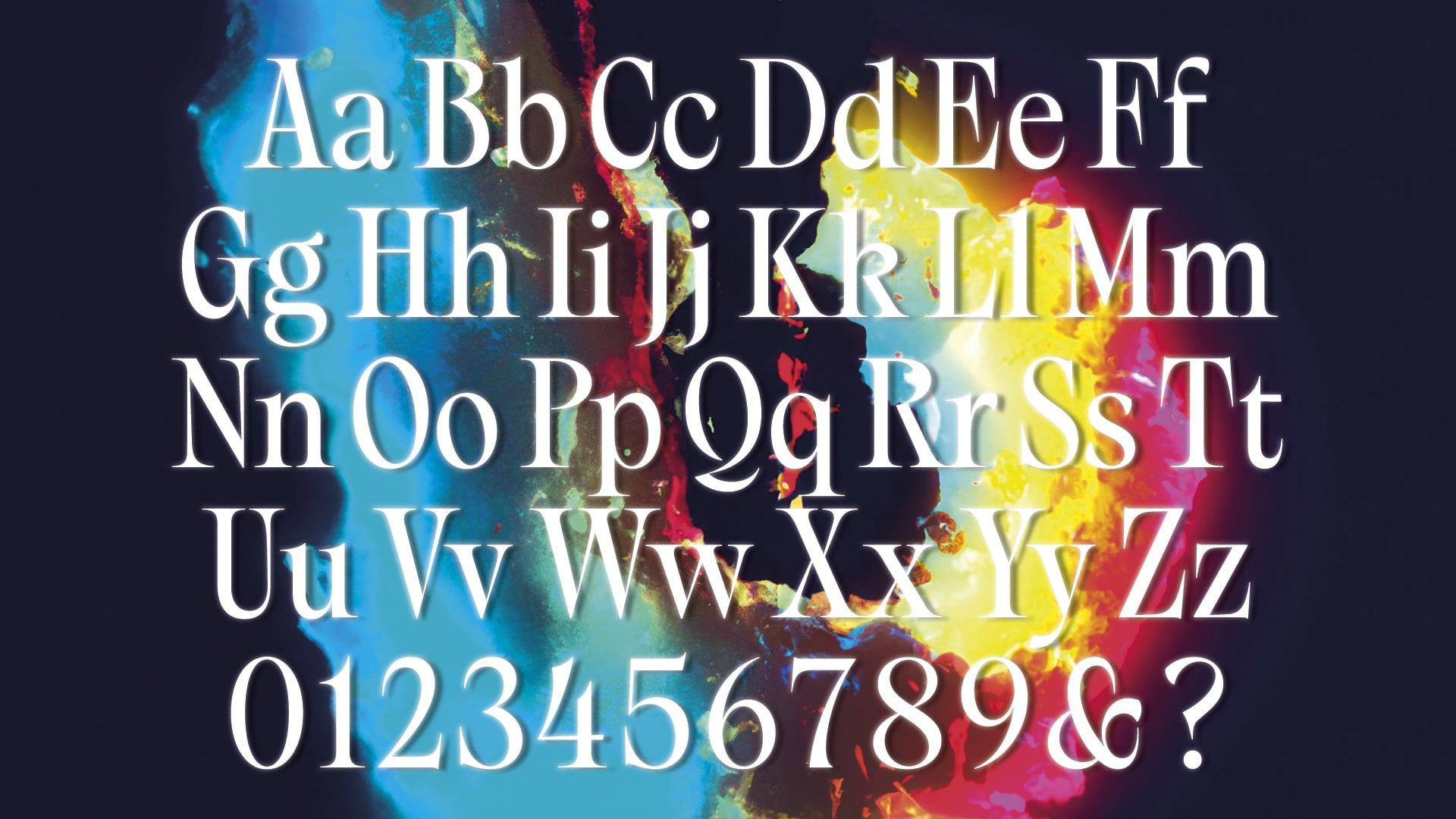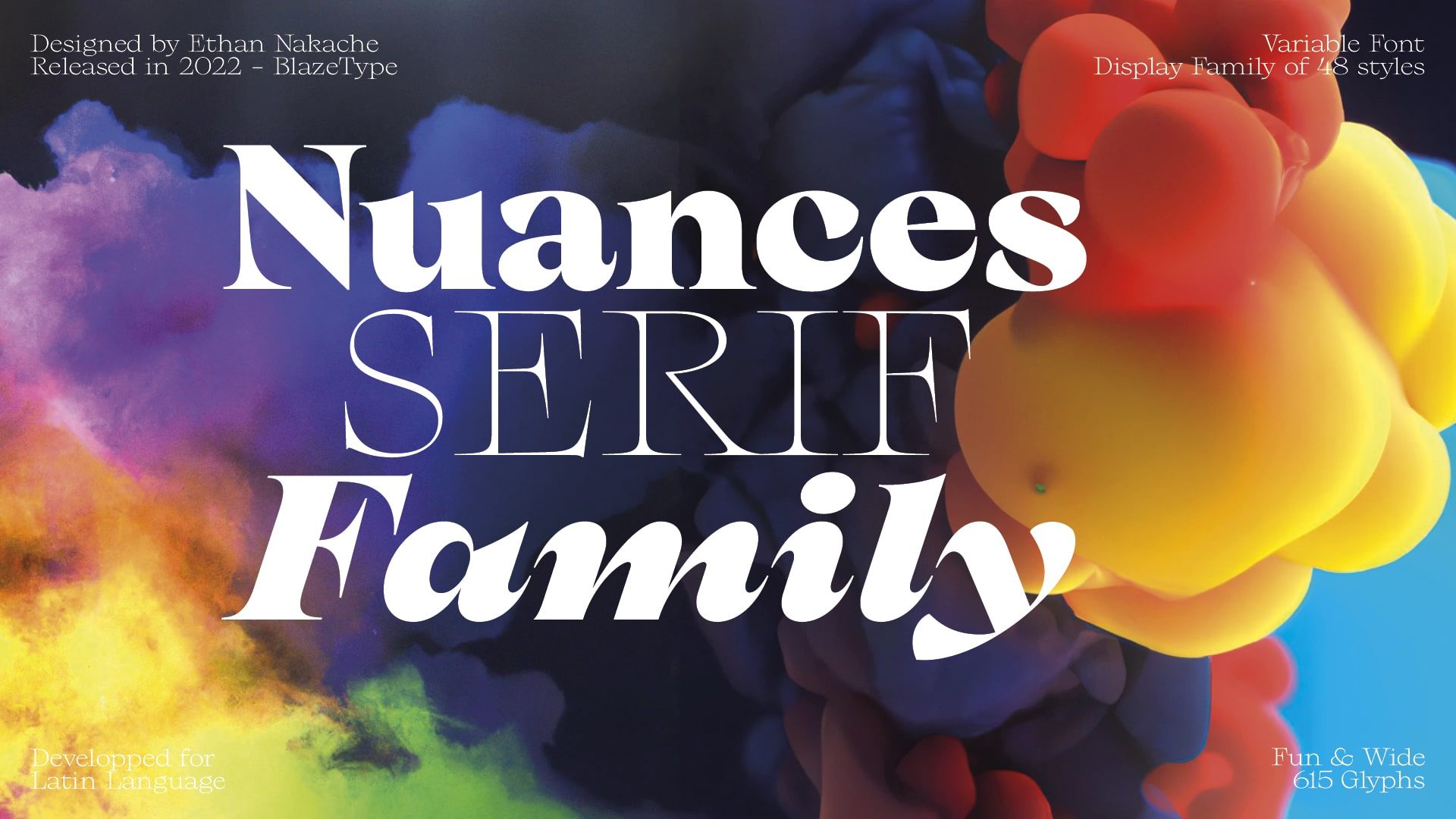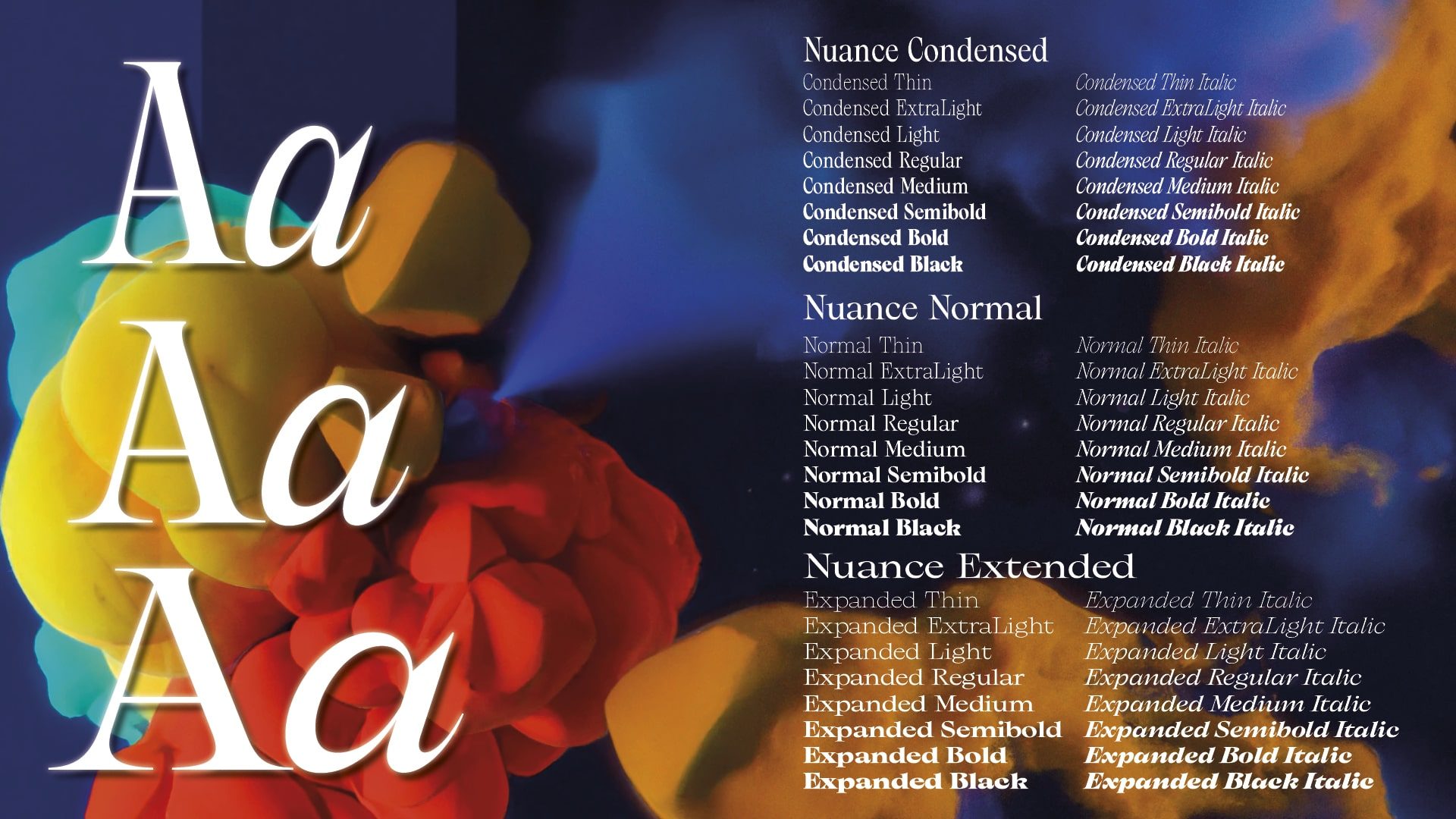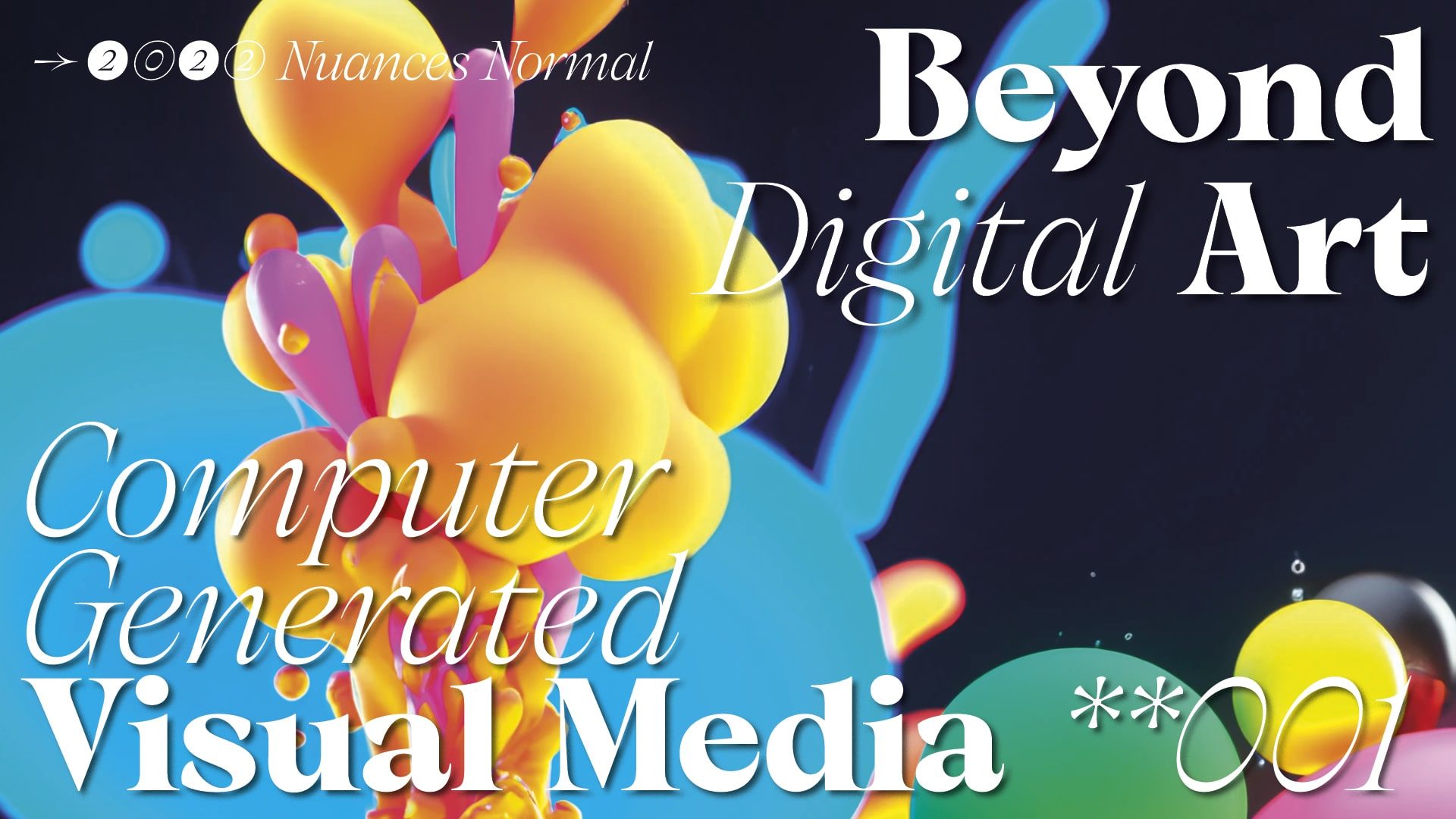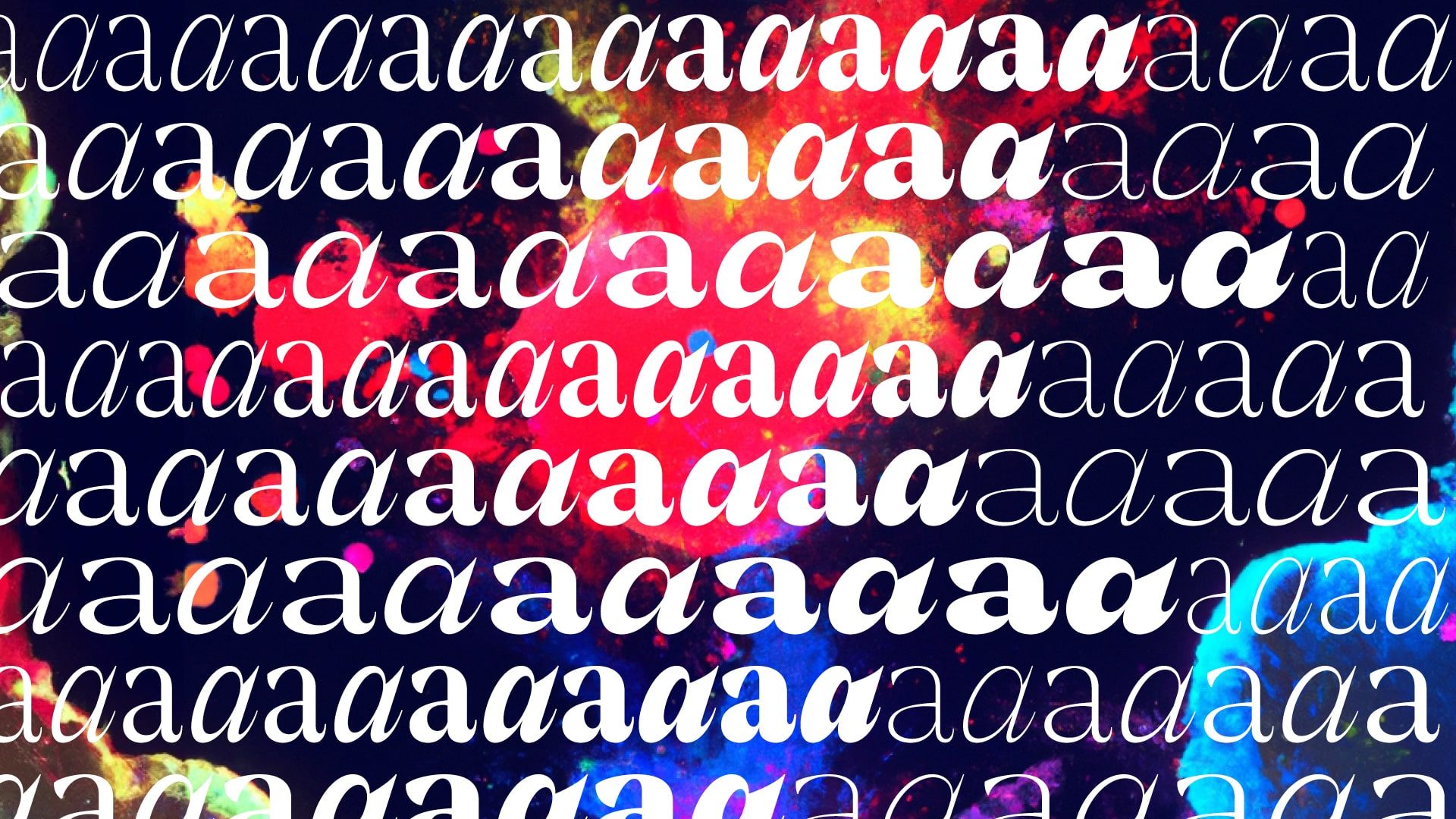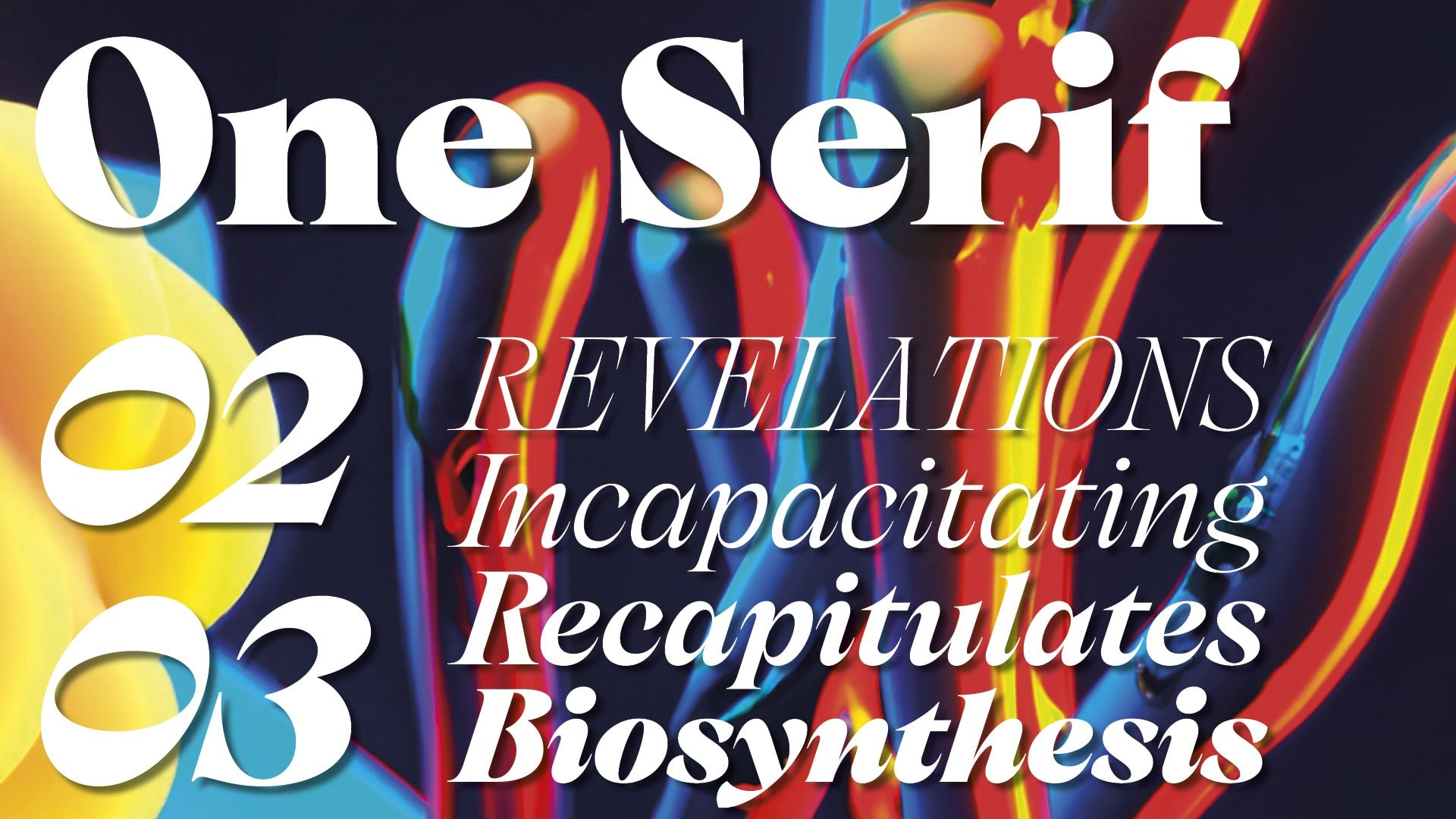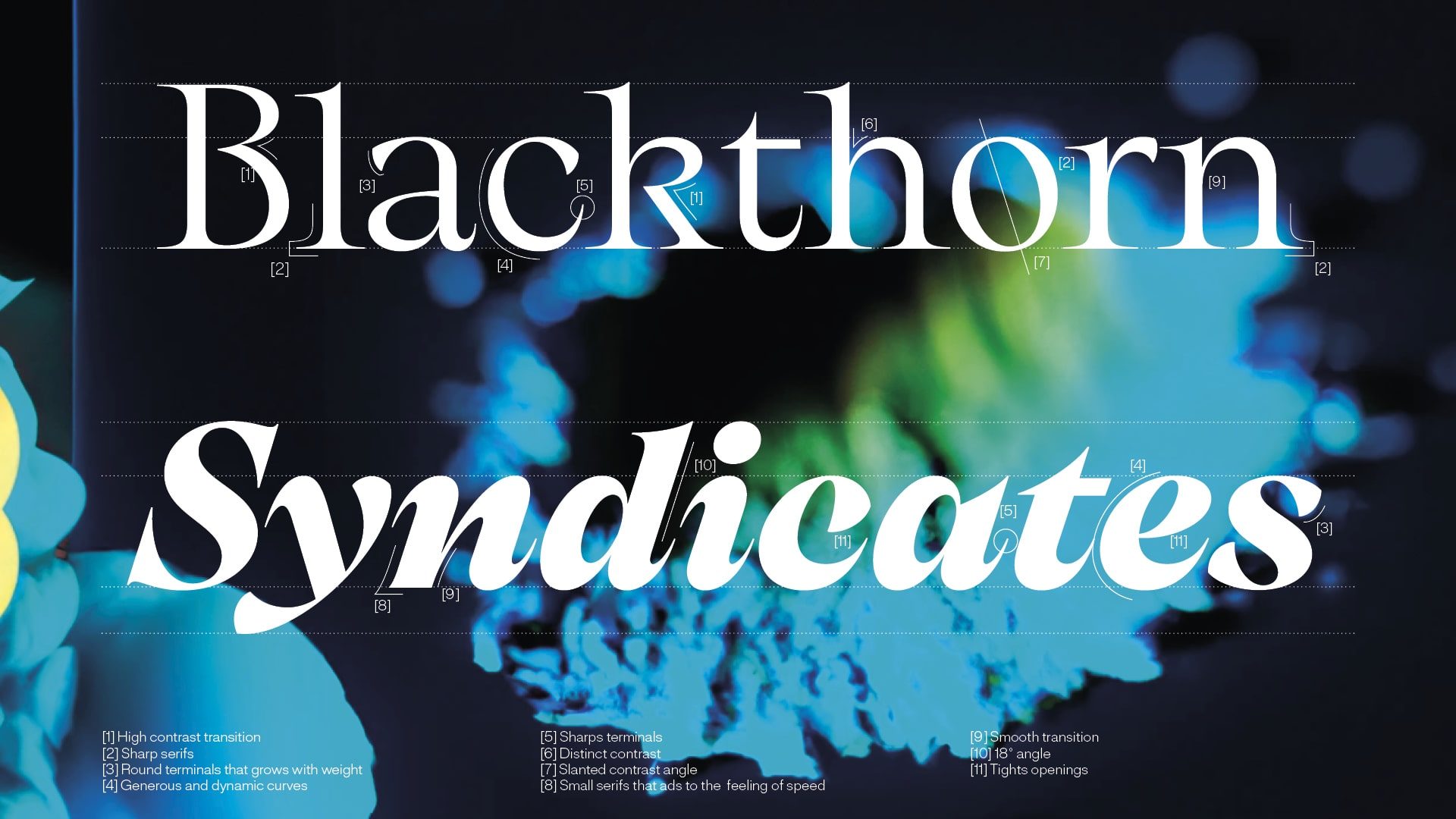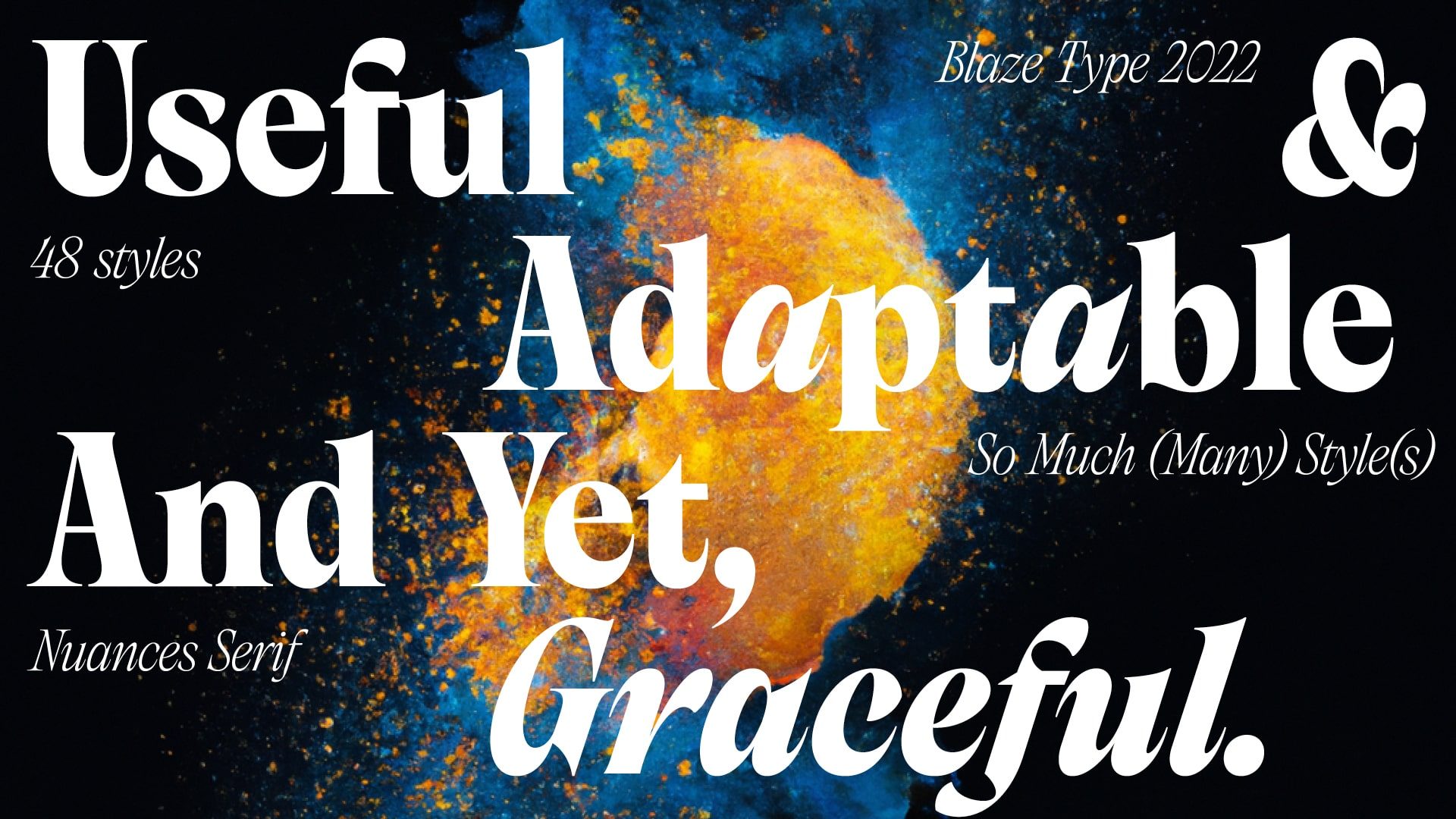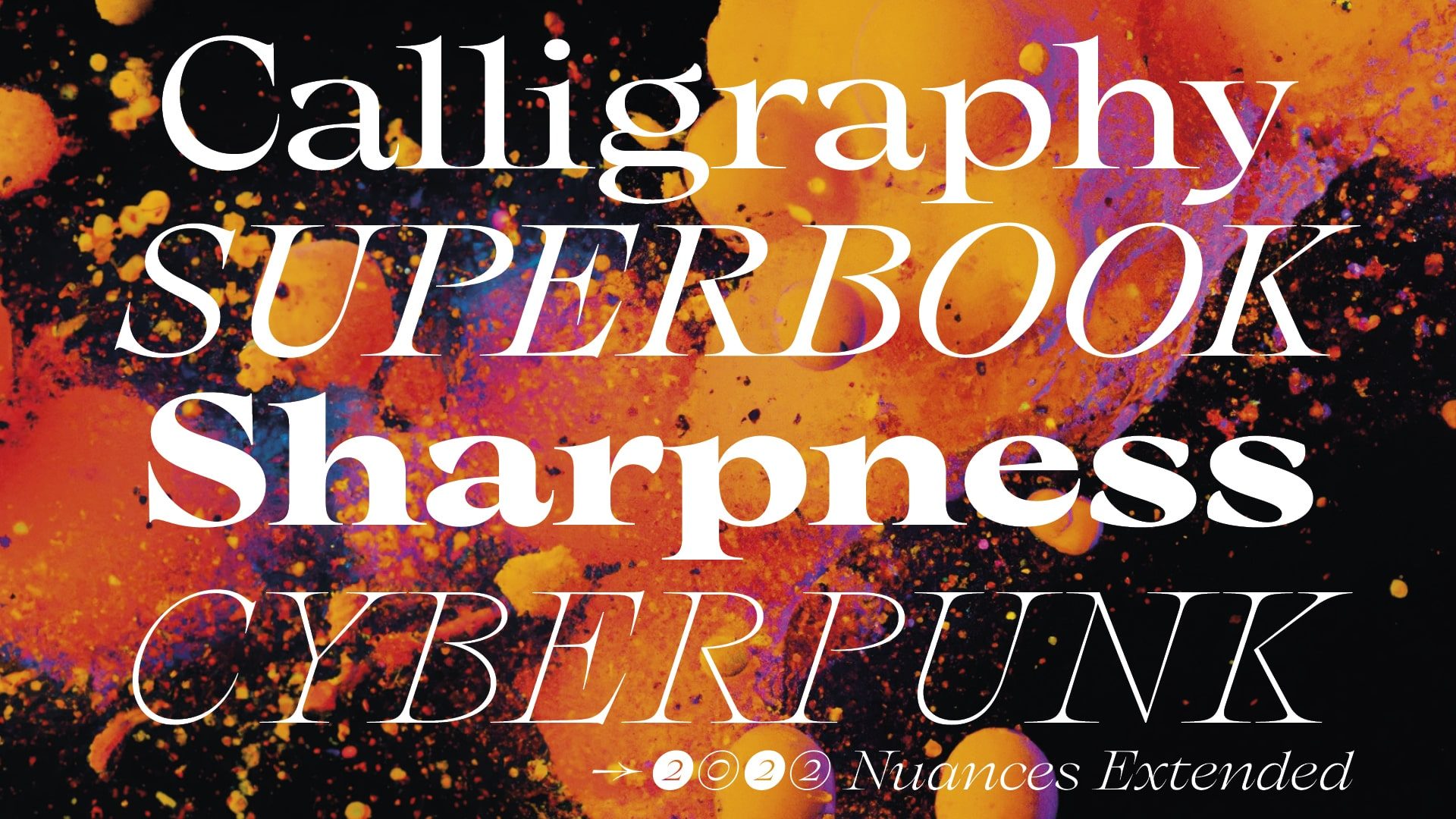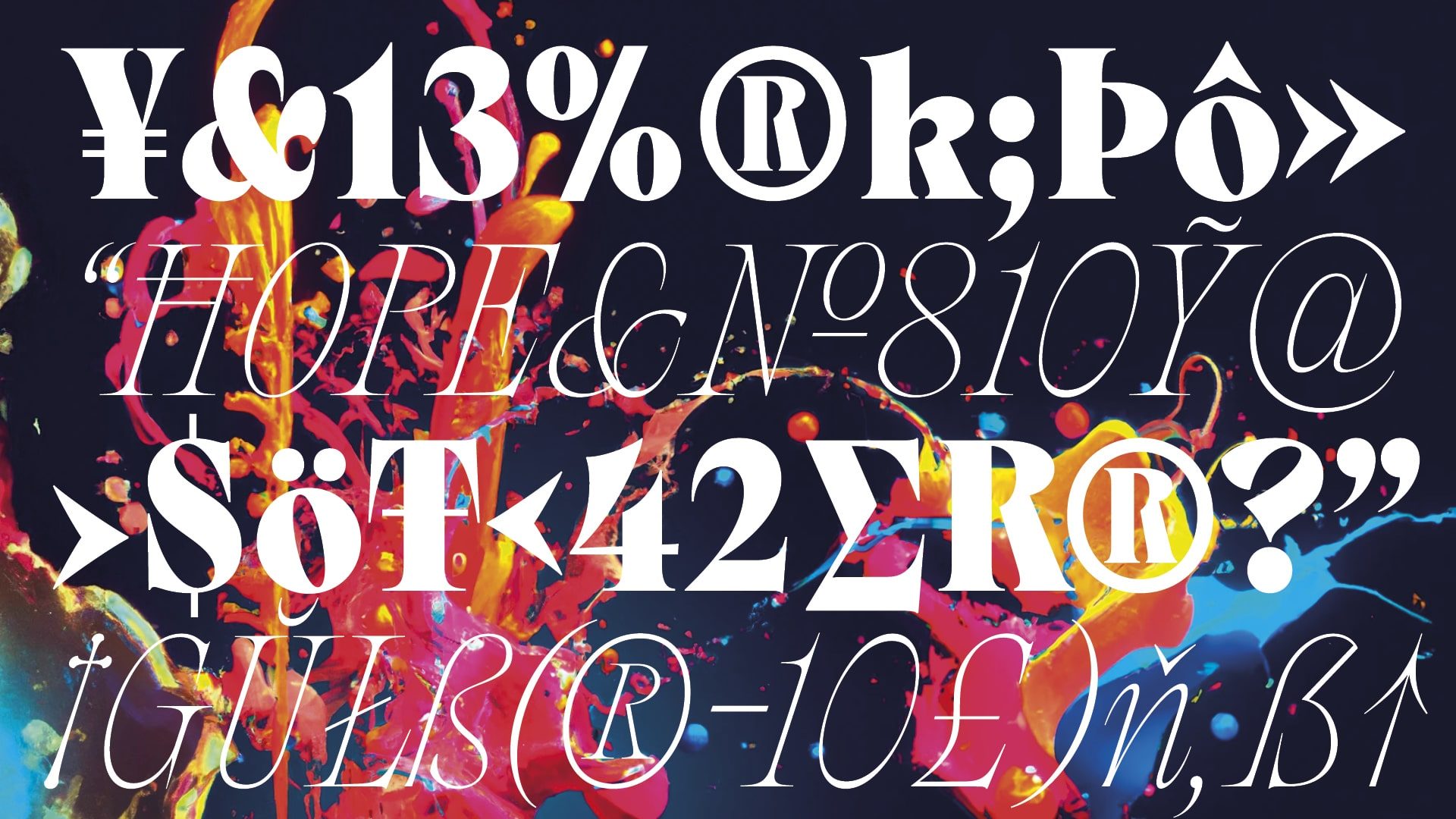
Nuances
Nuances Serif is a very rich Serif family, with a highly expressive and resolutely modern design. Born from personal research on typographic design and aesthetic detail, Nuances Serif is a sharp serif font family with strong contrast and elegant curves. With a particular attention to the design of each glyph, this font family is meant to be used in large sizes. This expressive typeface is to be experienced, shown, read and seen through its elegant shapes, and its confident design.
Nuances Serif can also be appreciated for its playfulness due to its glyph diversity and large character set. Ranging from Condensed Thin to Extended Black, this font family is available in 3 Widths and 8 Weights with matching Italics. The wide range of its styles (48) offers infinite possibilities for text layouts combining width, weights, contrasts and styles to create original and sophisticated graphic compositions. A proper adaptative and expressive typeface family, it's elegant appearance would be as adequate to a luxury brand as to a poster for movies, or even a packaging for grocery stores’ items.
The technical and aesthetic constraints brought by the variable aspect of the font played a capital importance in the drawing. The curves and contrasts keep a constant unity throughout the width design space and become more and more generous as the font goes blacker.
The thinner the design is, the more prominent the serifs are, and the blacker it is, the less present they are, allowing a tighter space. The typeface offers then a very different visual experience depending on the style used. From sharp and precise when used in Thin to a much richer and denser appearance when getting darker when used in Black. The drawing of the Italic styles was the perfect opportunity to join the main characteristics of the elegant roman design with a strong velocity feeling (slant angle) that would bring a powerful contrast in graphic creations, coupled with an expressive attitude.
Ethan Nakache